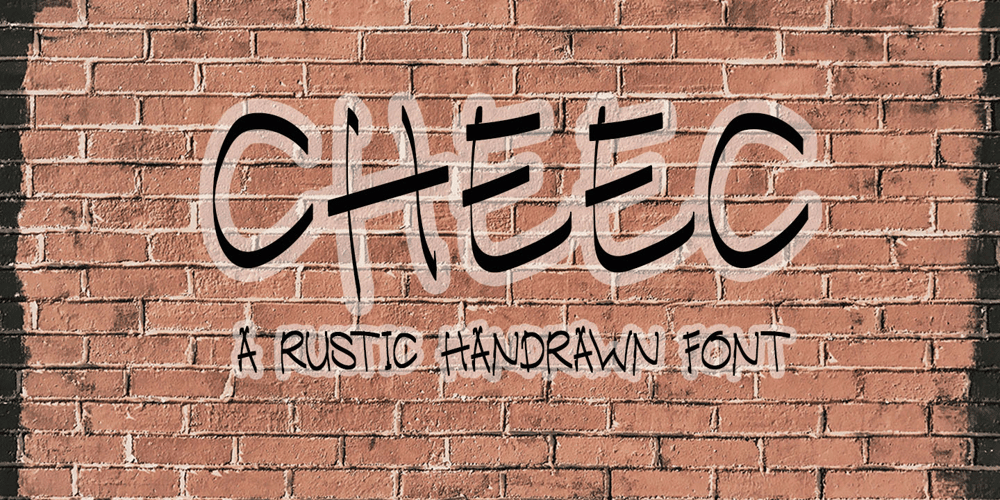
Cheec
Cheec font
Cheec Font Family was designed by Risca Anitawati and published by Reyrey Blue Std. Cheec contains 1 styles and family package options. Introducing Cheec. It is a cool and sophisticated handwritten font with a refreshing and organic feel.This type of font is perfectly made to be applied especially in logos, headlines, signage, and other various formal forms such as invitations, labels, logos, magazines, books, greeting/wedding cards, packaging, fashion, makeup, stationery, novels, labels, or any advertising purpose. This product was created to help you make your digital images even more beautiful and unique.